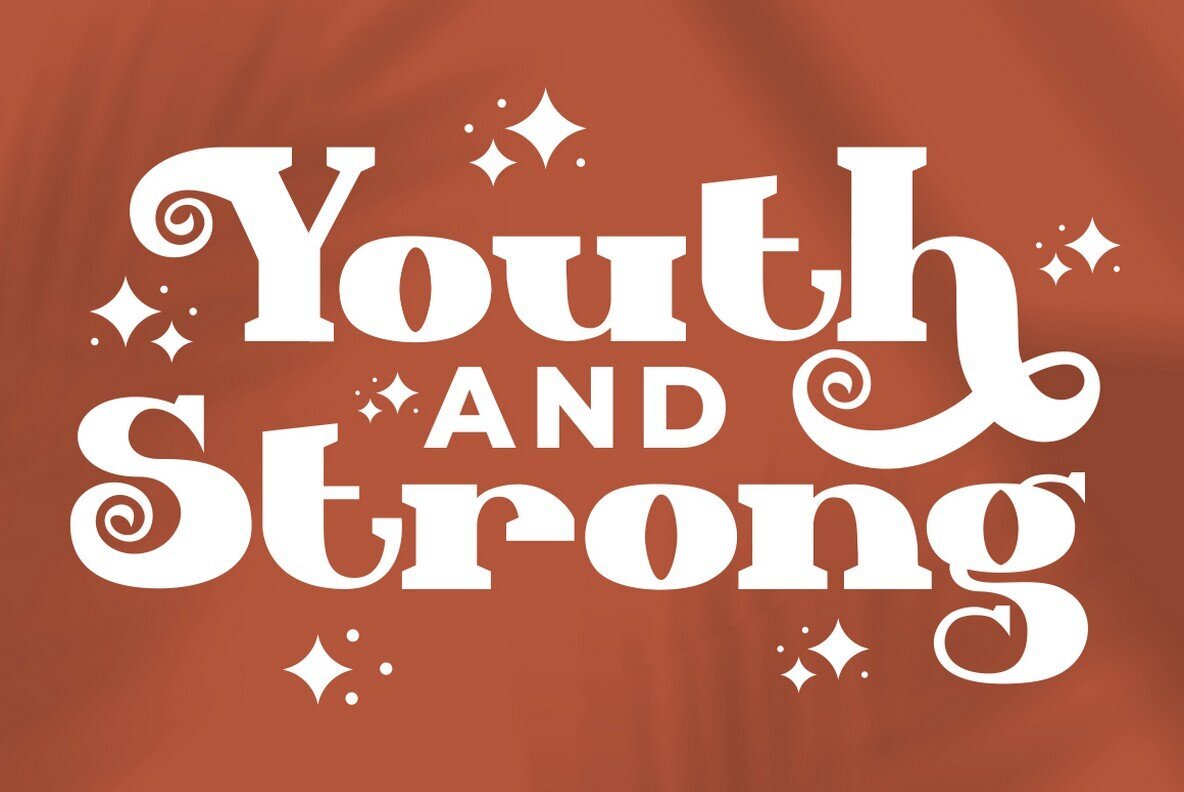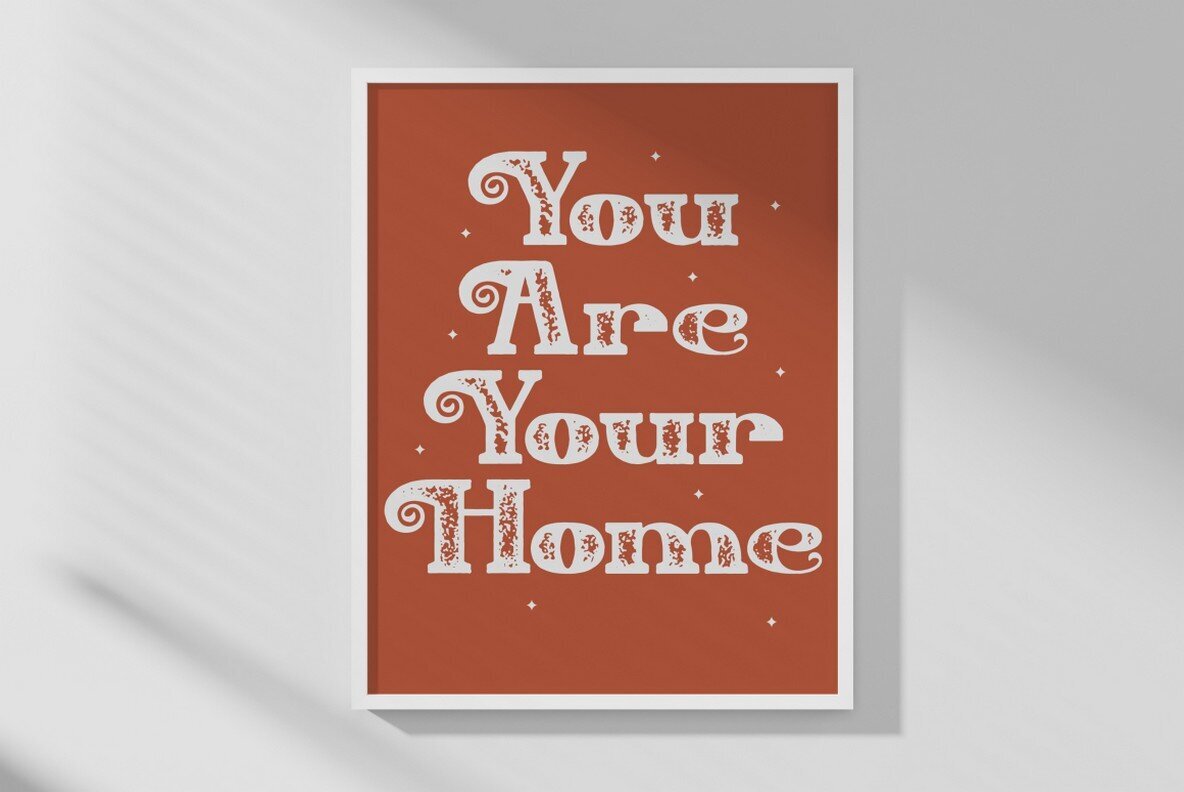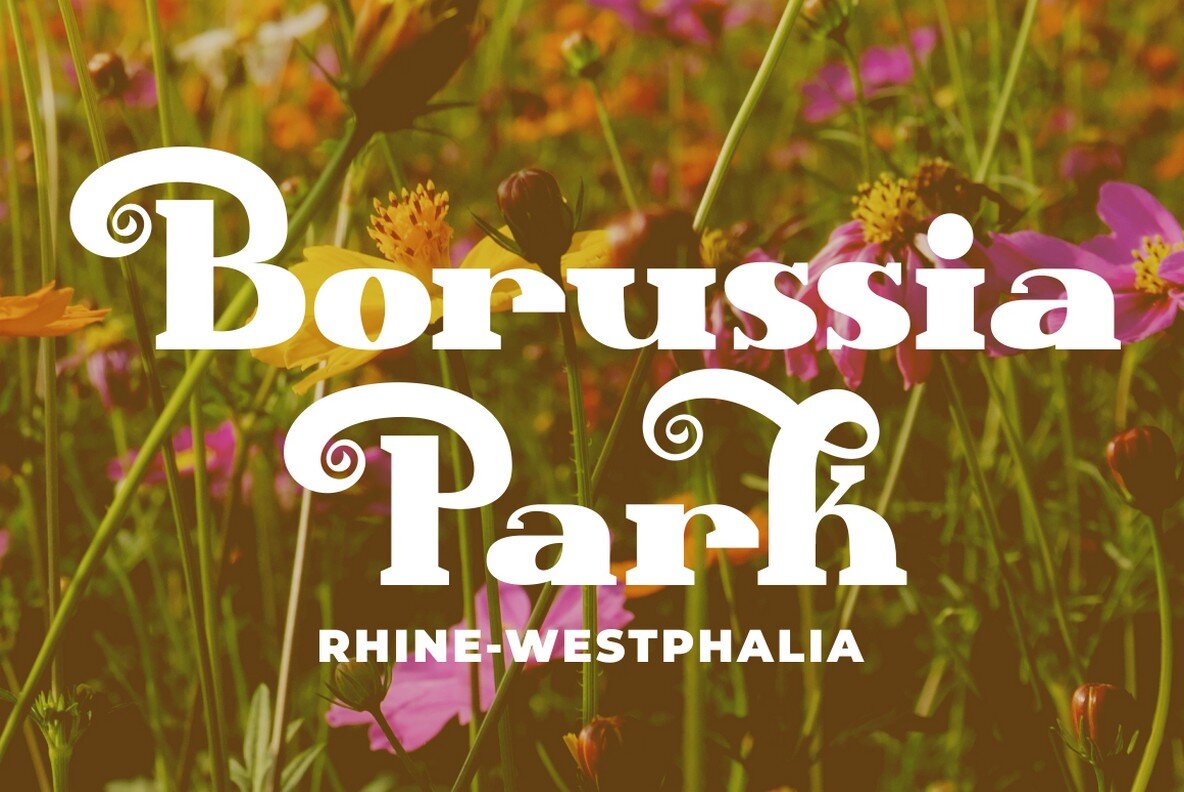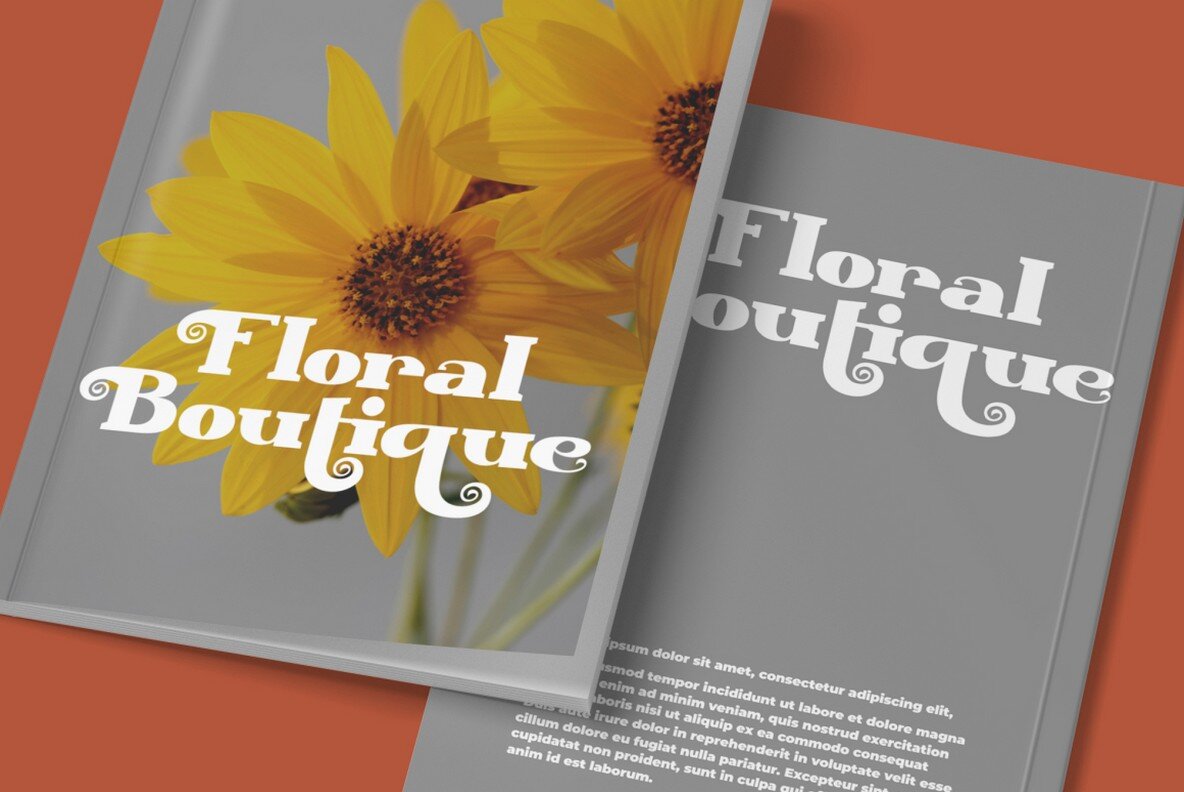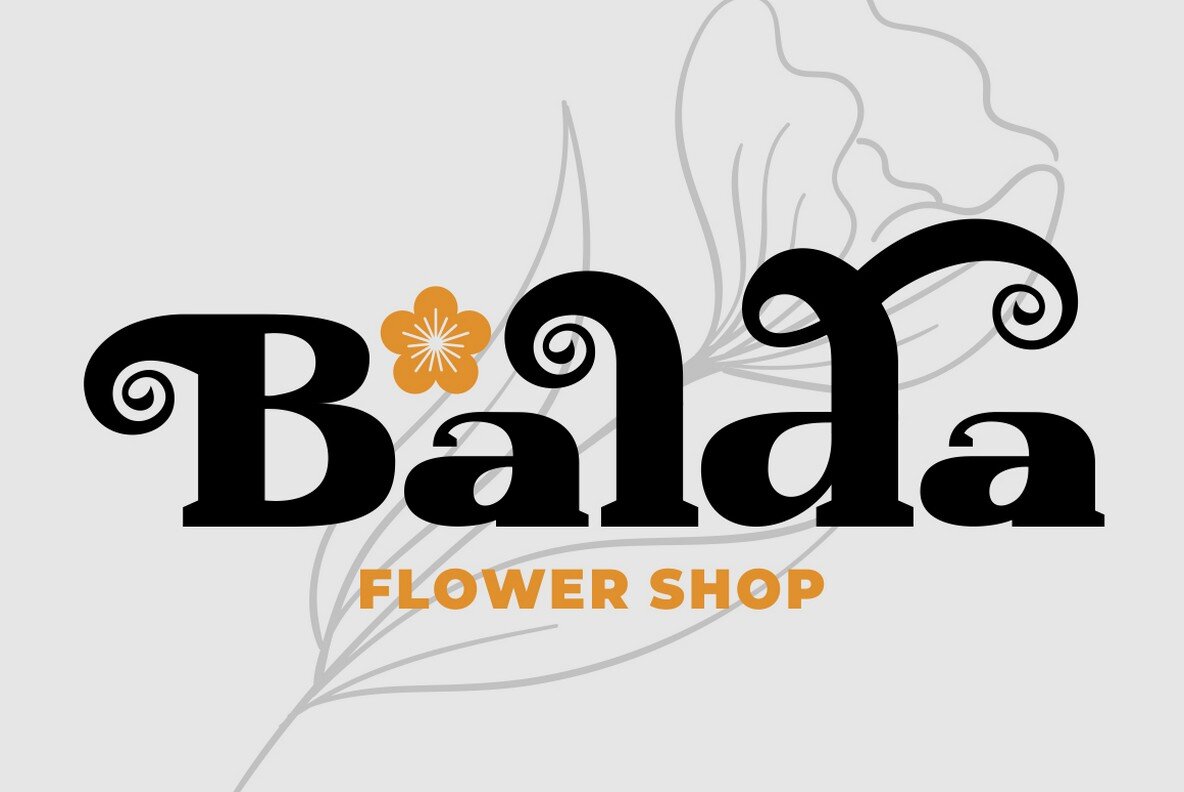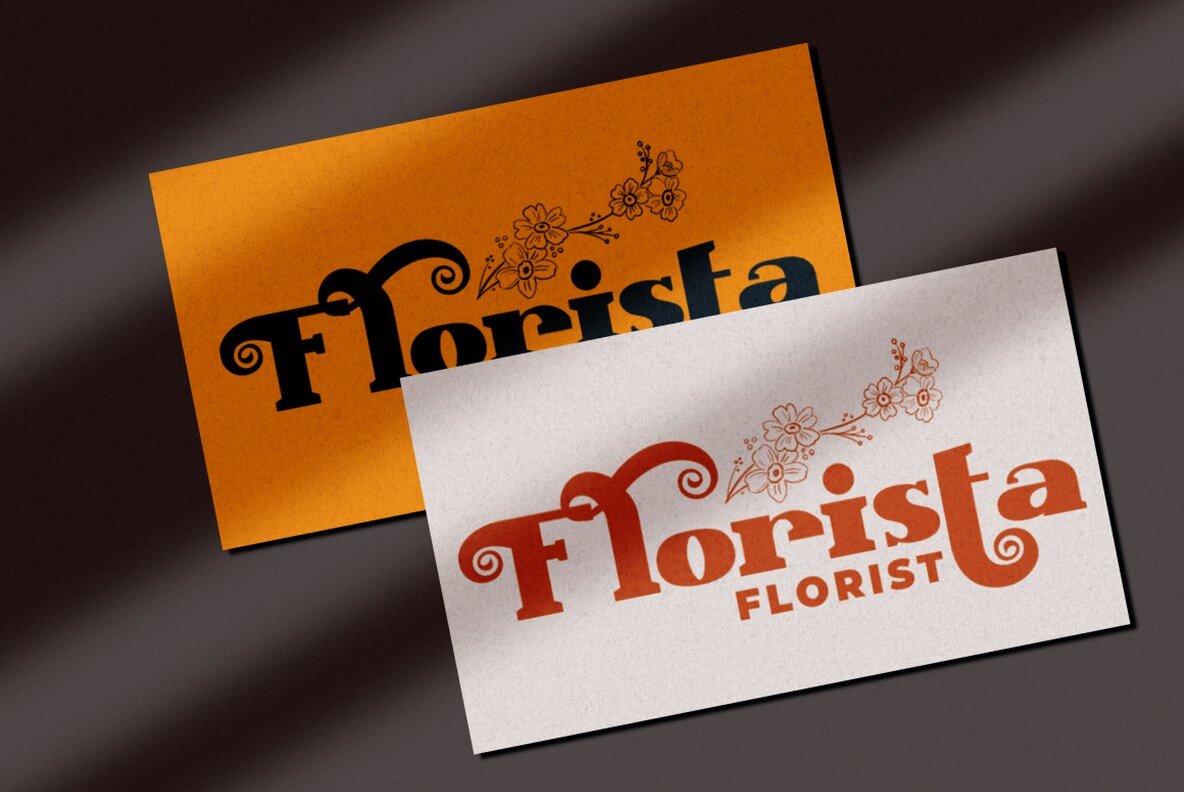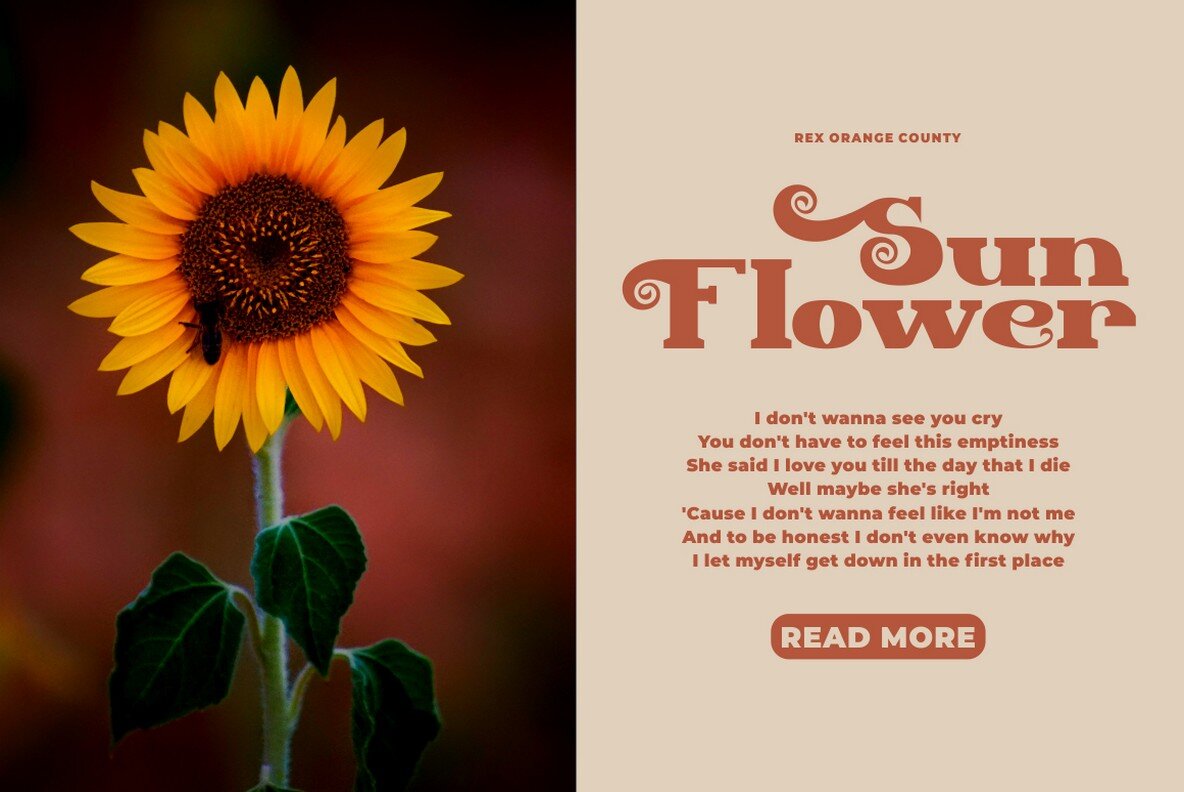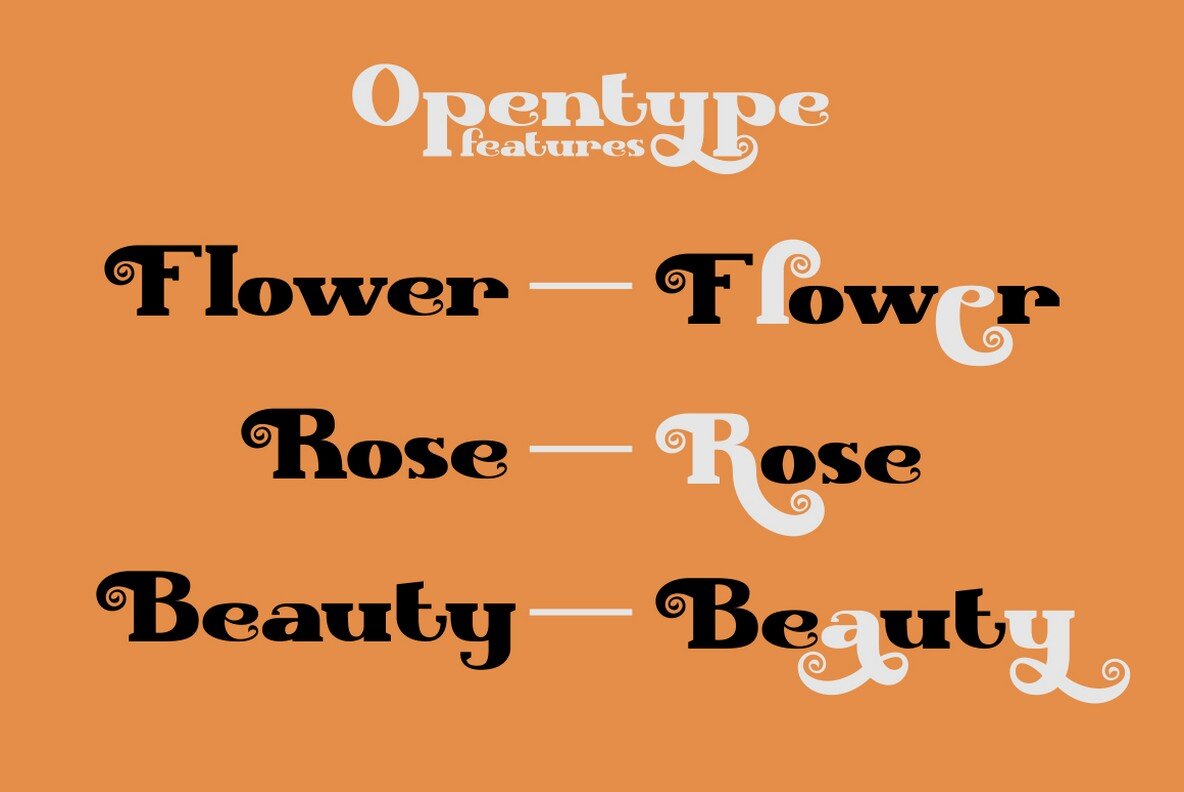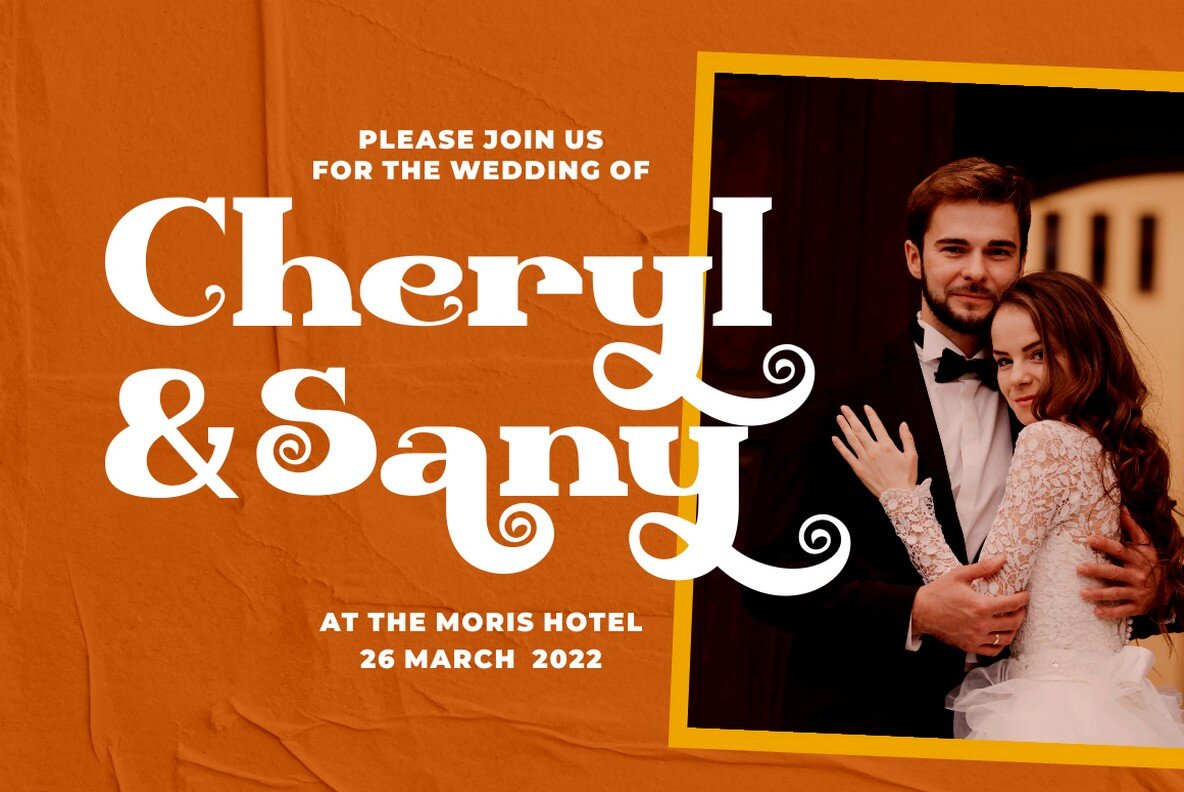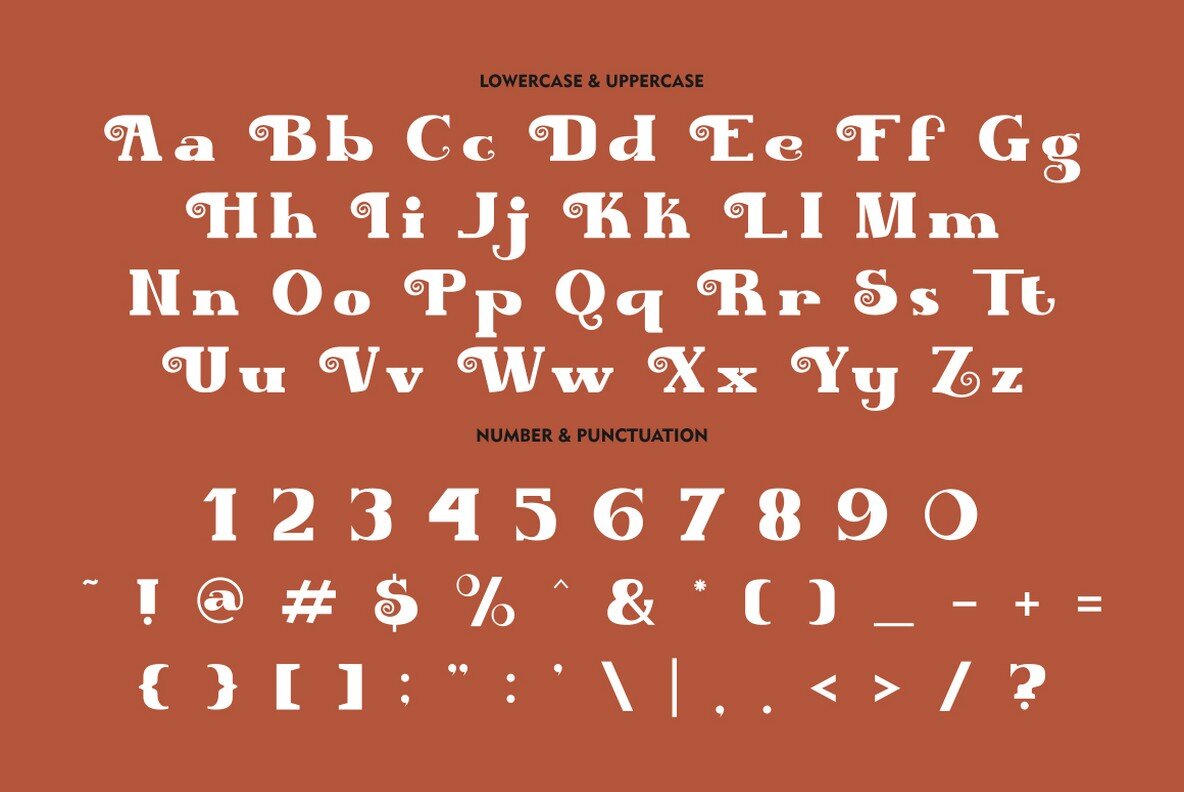
Glamiora Font
Glamiora Regular
Glamiora Texture
Glamiora, designed by Putra Novembria Candra Kusuma, is a bold display serif font that exudes a vintage allure. It combines a strong presence with gentle, curvaceous elements, evoking the boldness of the 70s while maintaining a touch of traditional style. The font's dynamic character makes it ideal for diverse design projects, from creating stunning logos to enriching blog posts and social media content. Access these features with OpenType-friendly software, such as Adobe Illustrator, InDesign, Photoshop, Corel Draw X, and Microsoft Word. Glamiora is perfect for branding projects, magazine imagery, wedding invitations, and more, making it a versatile asset for any designer's toolkit.Glamiora: Vintage Bold Display Serif